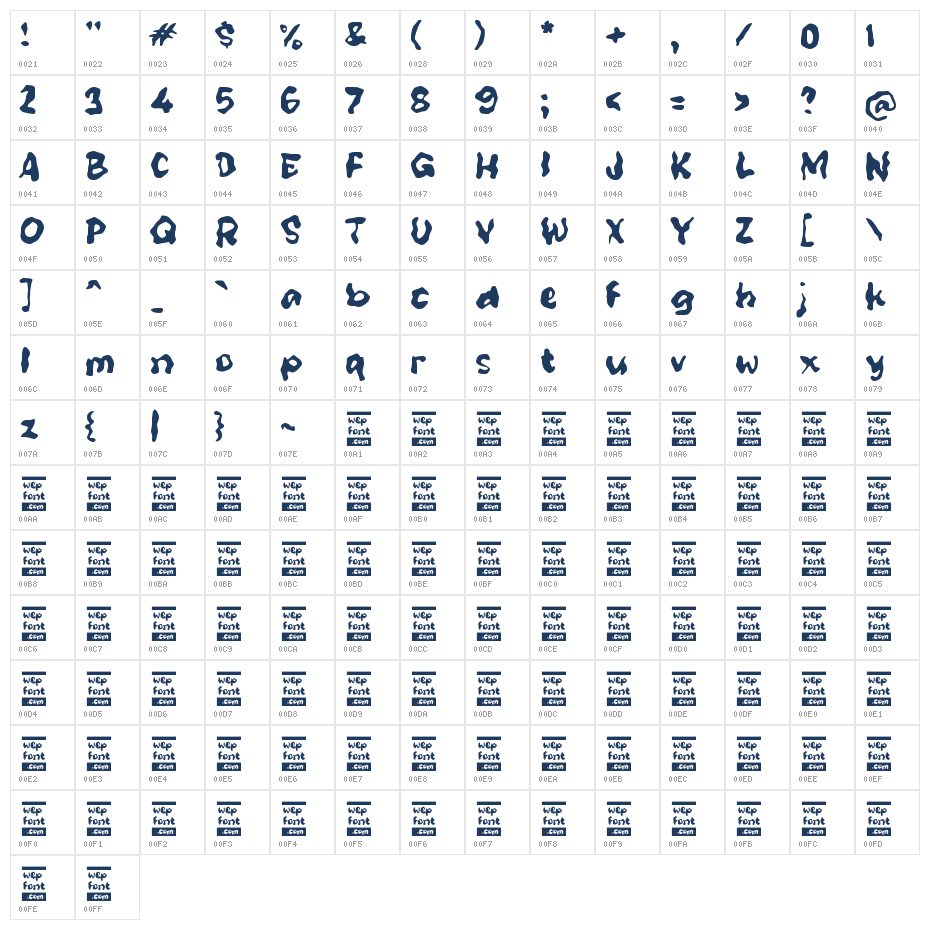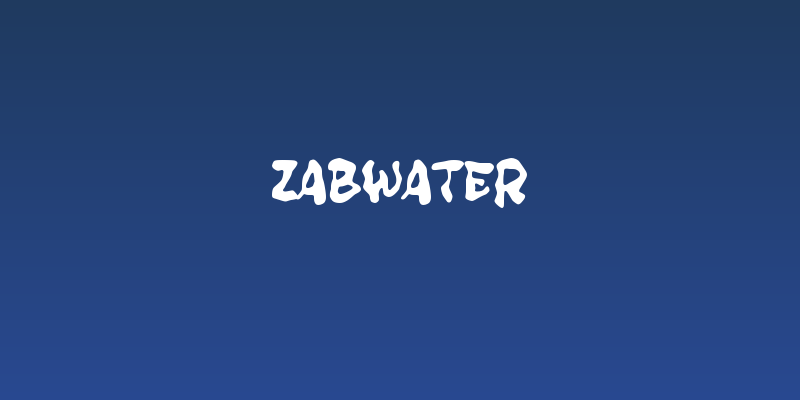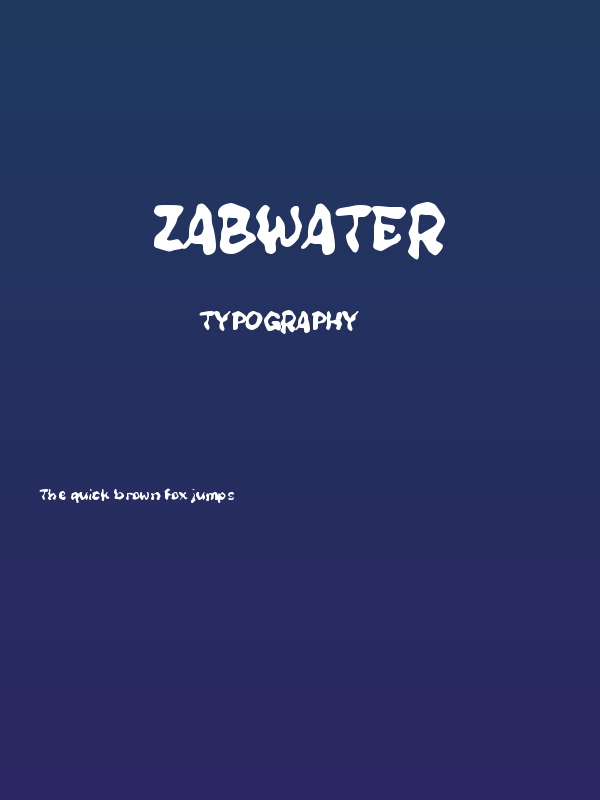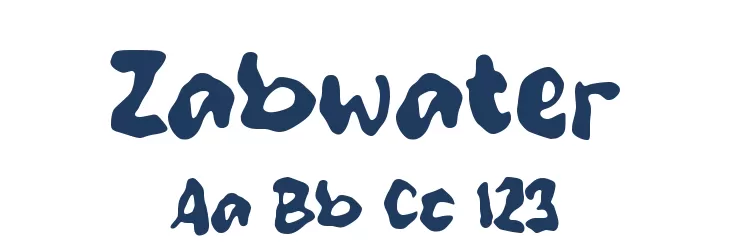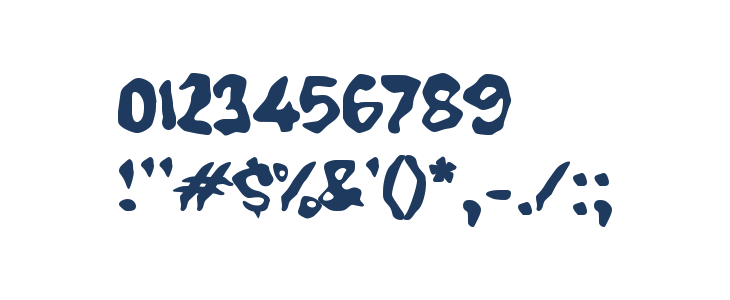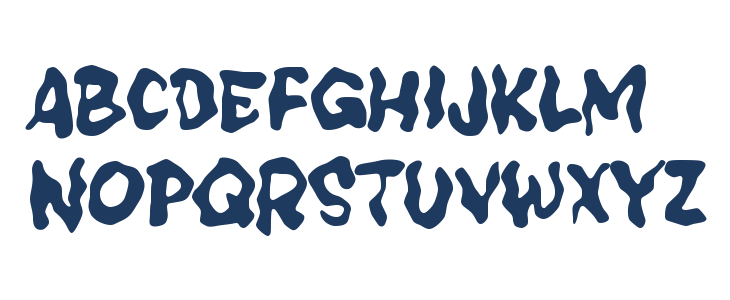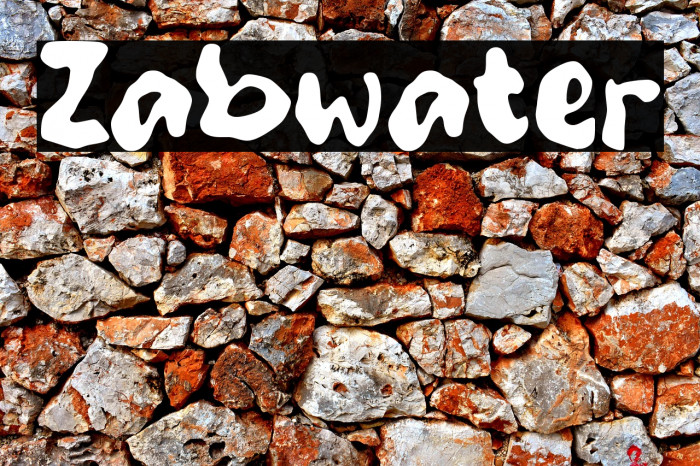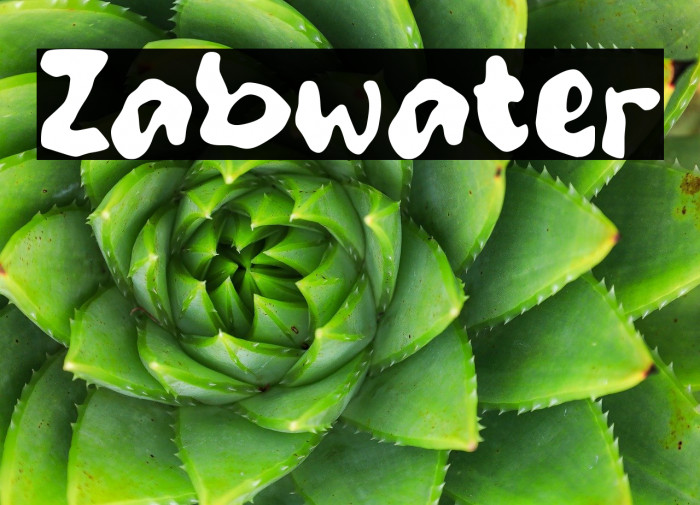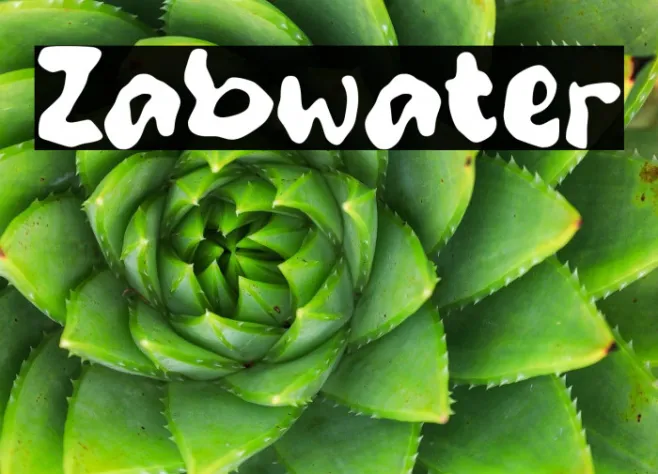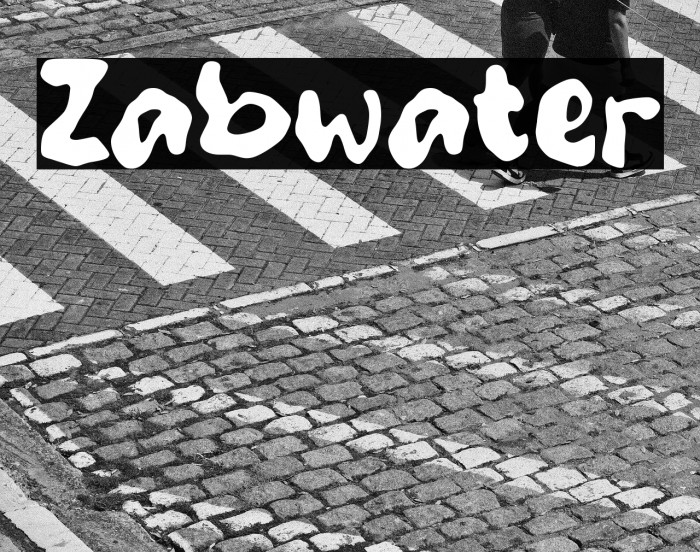
Zabwater Font
Zabwater Description
A playful, bold, and irregular handwritten style font with a casual, organic appearance.
| Overall Style | Casual, Playful, Organic |
| Use Case | Headlines, Posters, Children's materials, Informal branding |